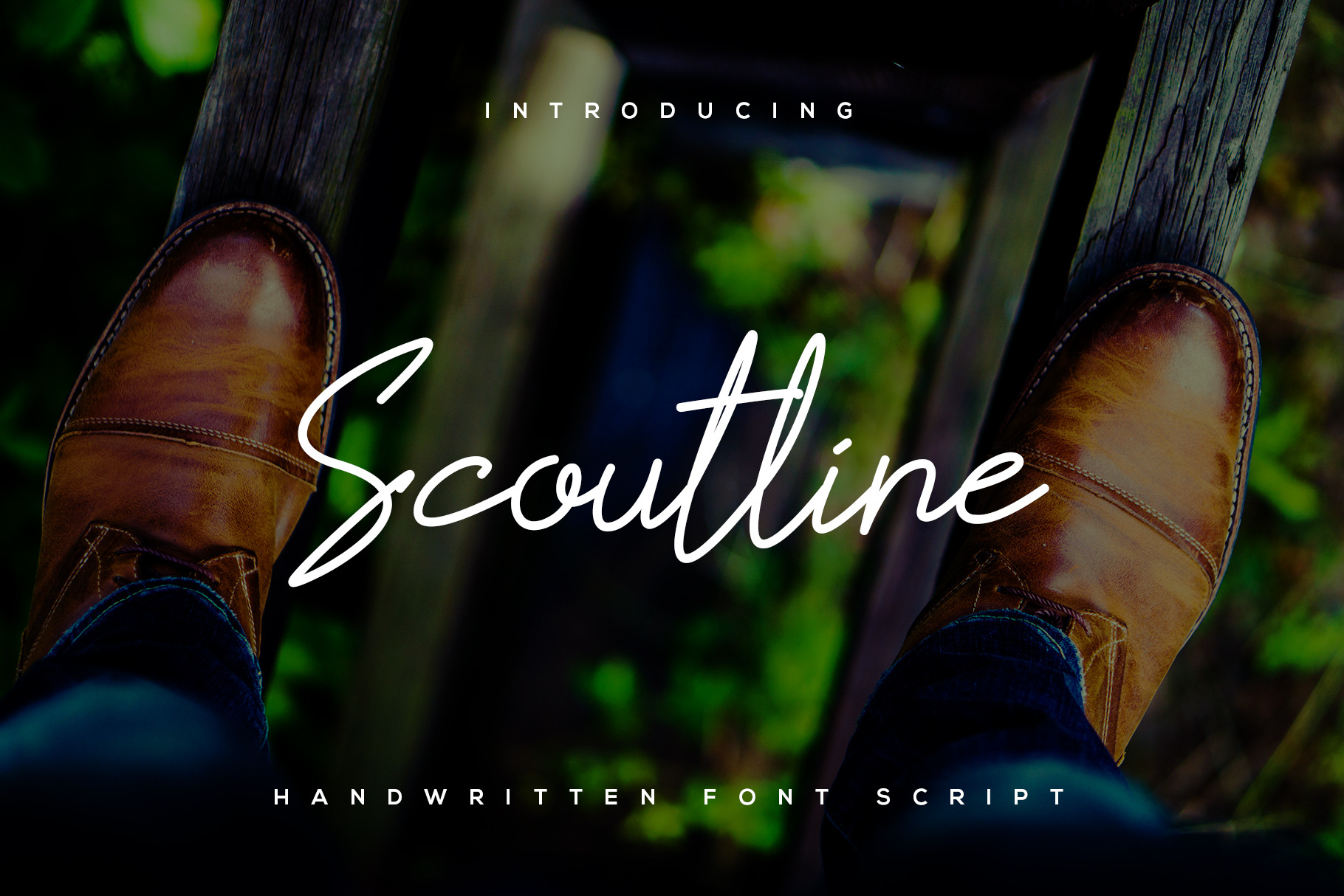
Scoutline Script Font
Introducing Scoutline, simple elegant handwriting style lines. This font offers a unique look and is very attached to your design in a classic or modern style. Scoutline is the right choice of fonts for your projects in the form of logos & branding, print media, social media posts, watermarks or works that require hand styles with a distinctive style.